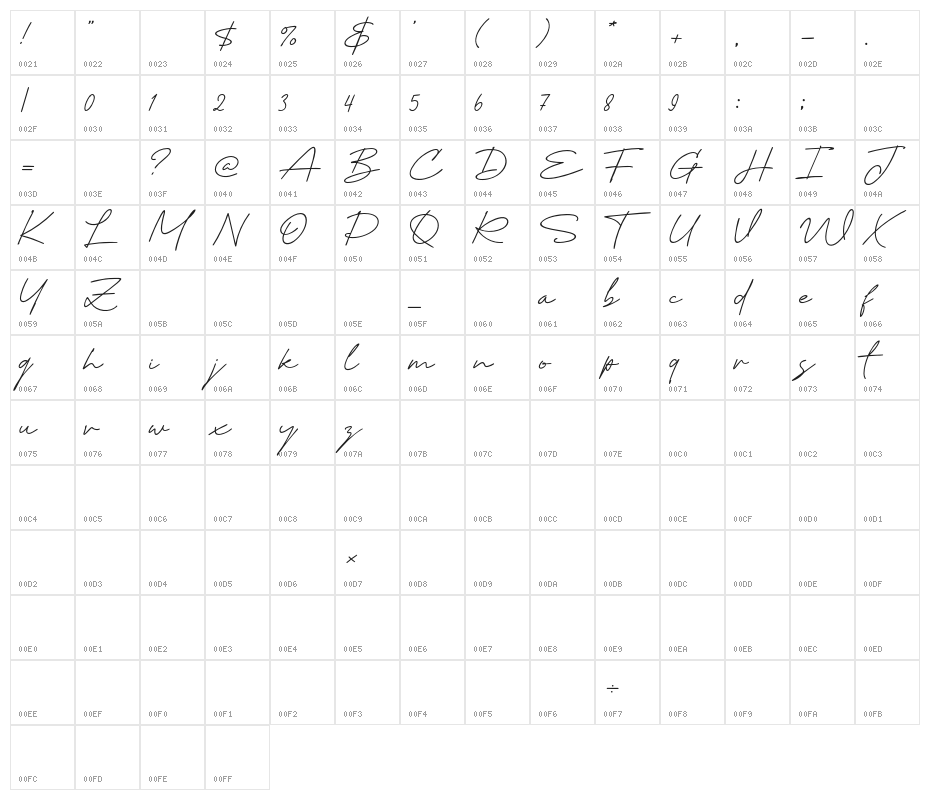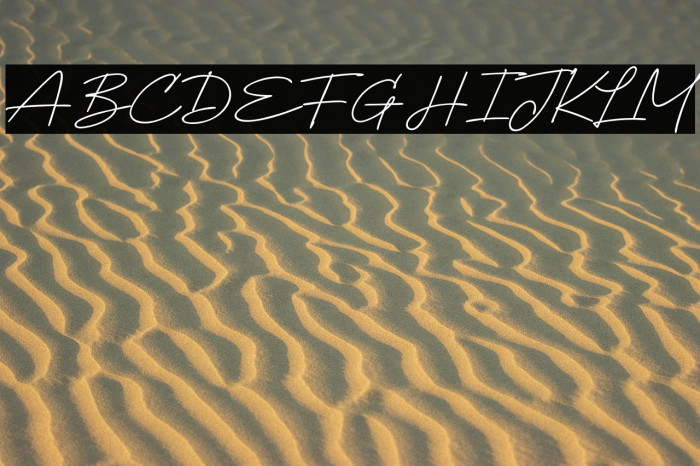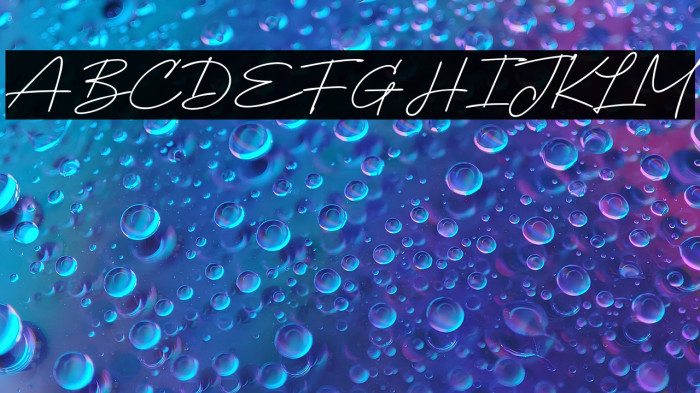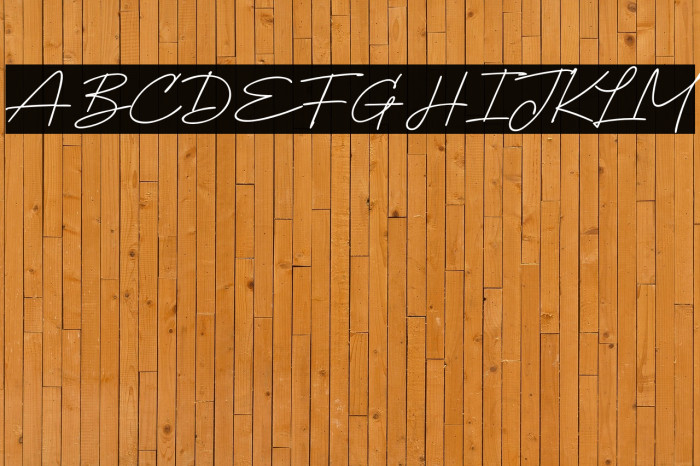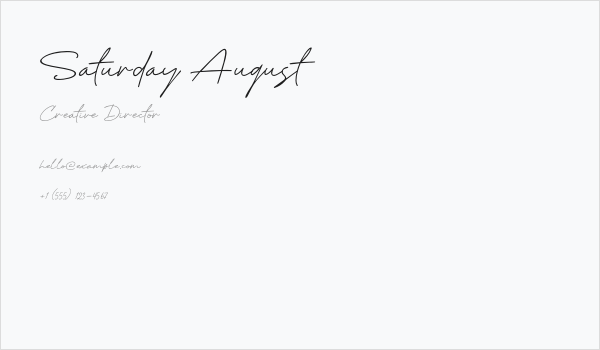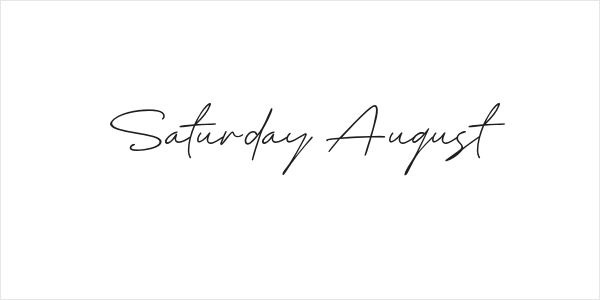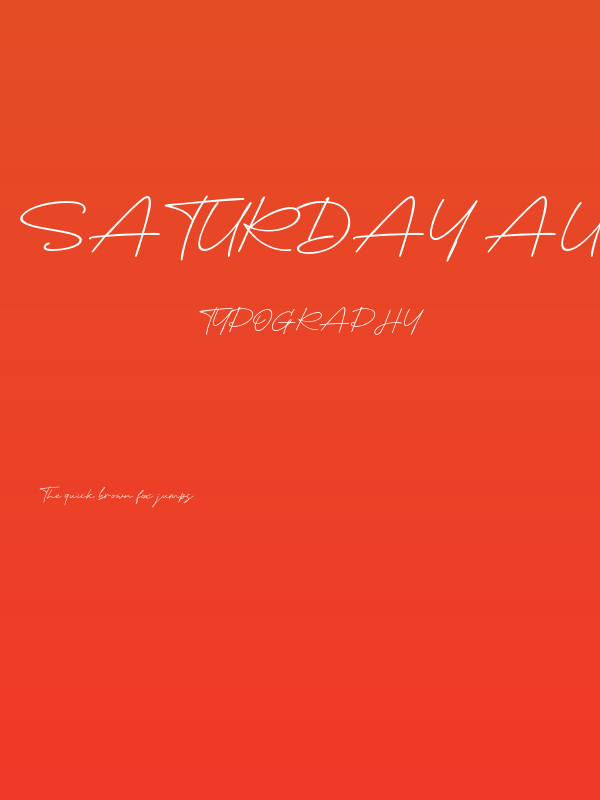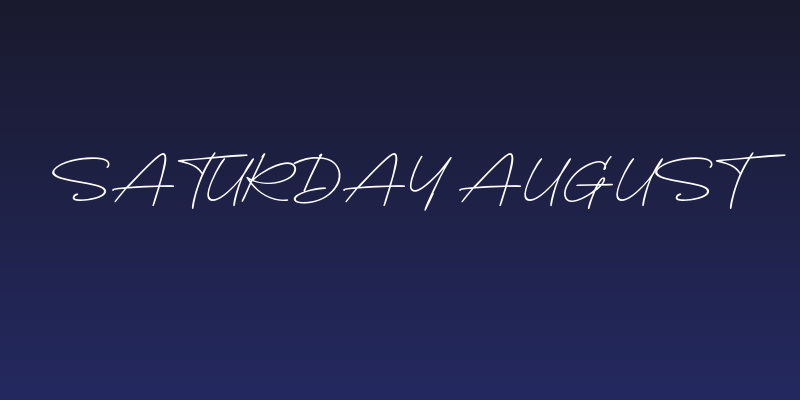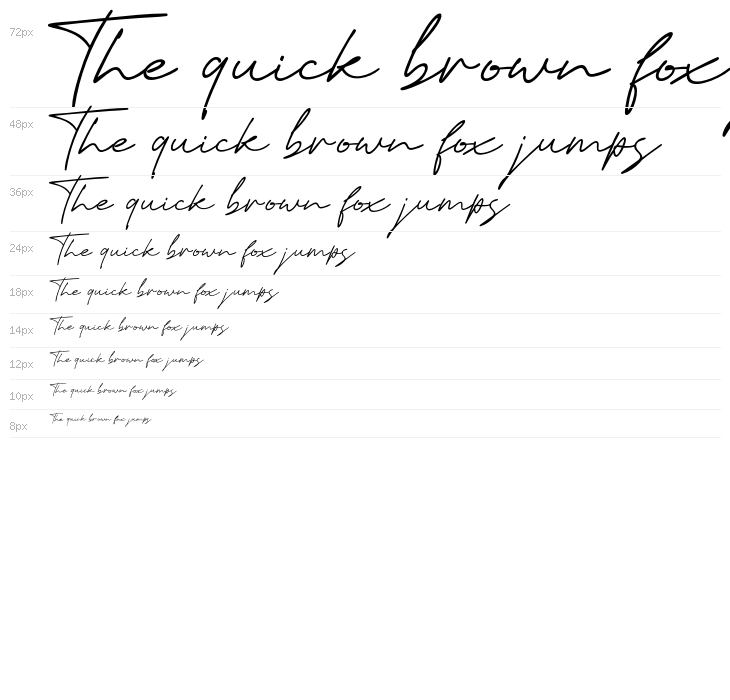
Saturday August Font
Saturday August Description
This font exudes a casual, handwritten style with a fluid and natural flow. The uppercase letters are slightly more structured, while the lowercase letters exhibit a more relaxed and freeform appearance. The numerals and special characters maintain the same handwritten aesthetic, contributing to a cohesive look. The strokes are consistent in thickness, providing a medium contrast that enhances readability while retaining the personal touch of handwriting. This font is ideal for projects that require a personal, approachable feel.
| Use Case | Logos, Invitations, Greeting cards |
| Proposed Projects | Greeting cards, personal branding, invitations, and casual social media graphics. |